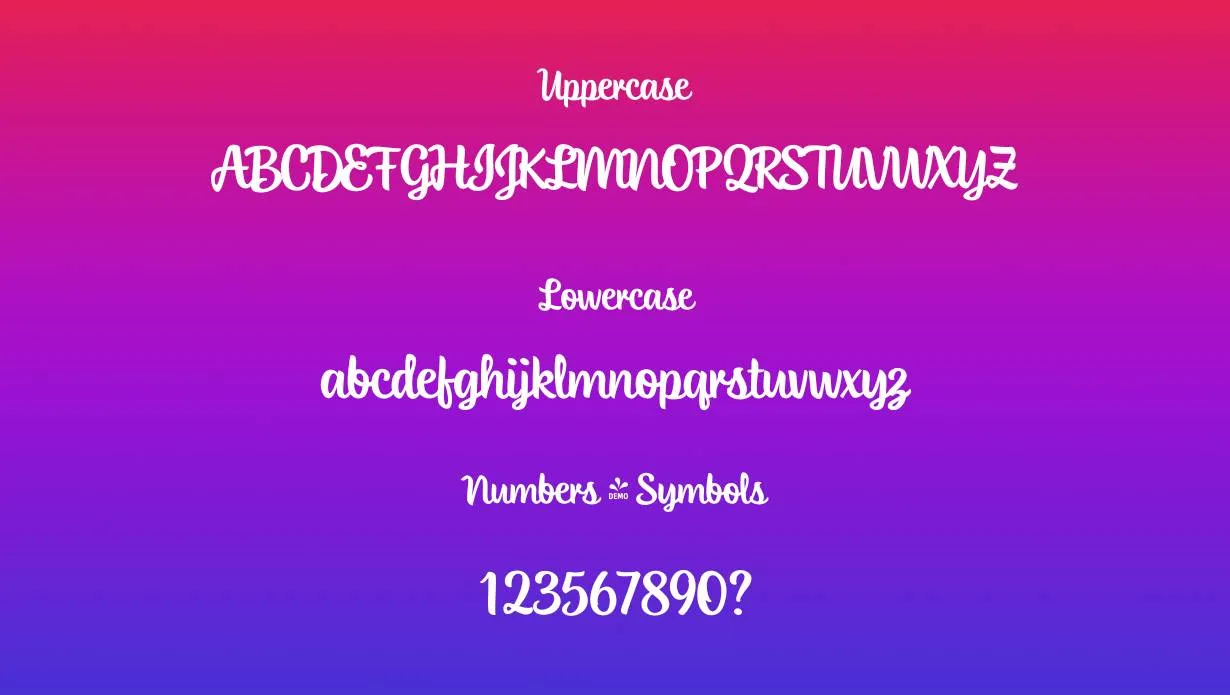
It is the script text design that was created to make unique and attractive content for the viewer. It is a nice text style that can be used to design unique tasks. It is highly readable style at large sizes as well as in smaller text sizes. The typeface has come to be an iconic style it has a beautiful design.
This font also supports multiple languages. You could define prominence in your work through the use of it. It has a nice sleek look which gives the content a more attractive appearance. This typeface has a vintage appearance that looks fantastic on almost any unique background.
This font is highly understandable and perfect for any kind of project. Because of its texture and tough letters, the typeface was used for numerous applications.